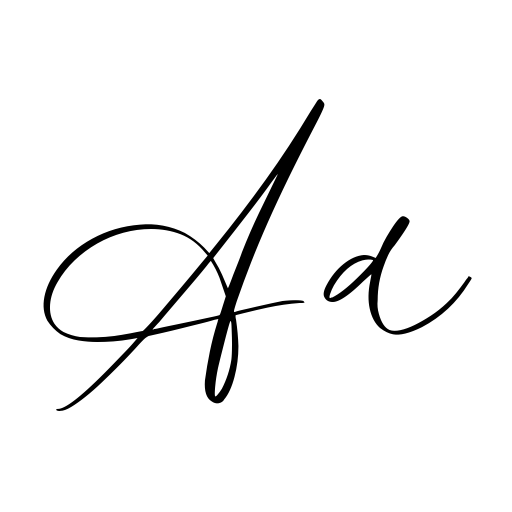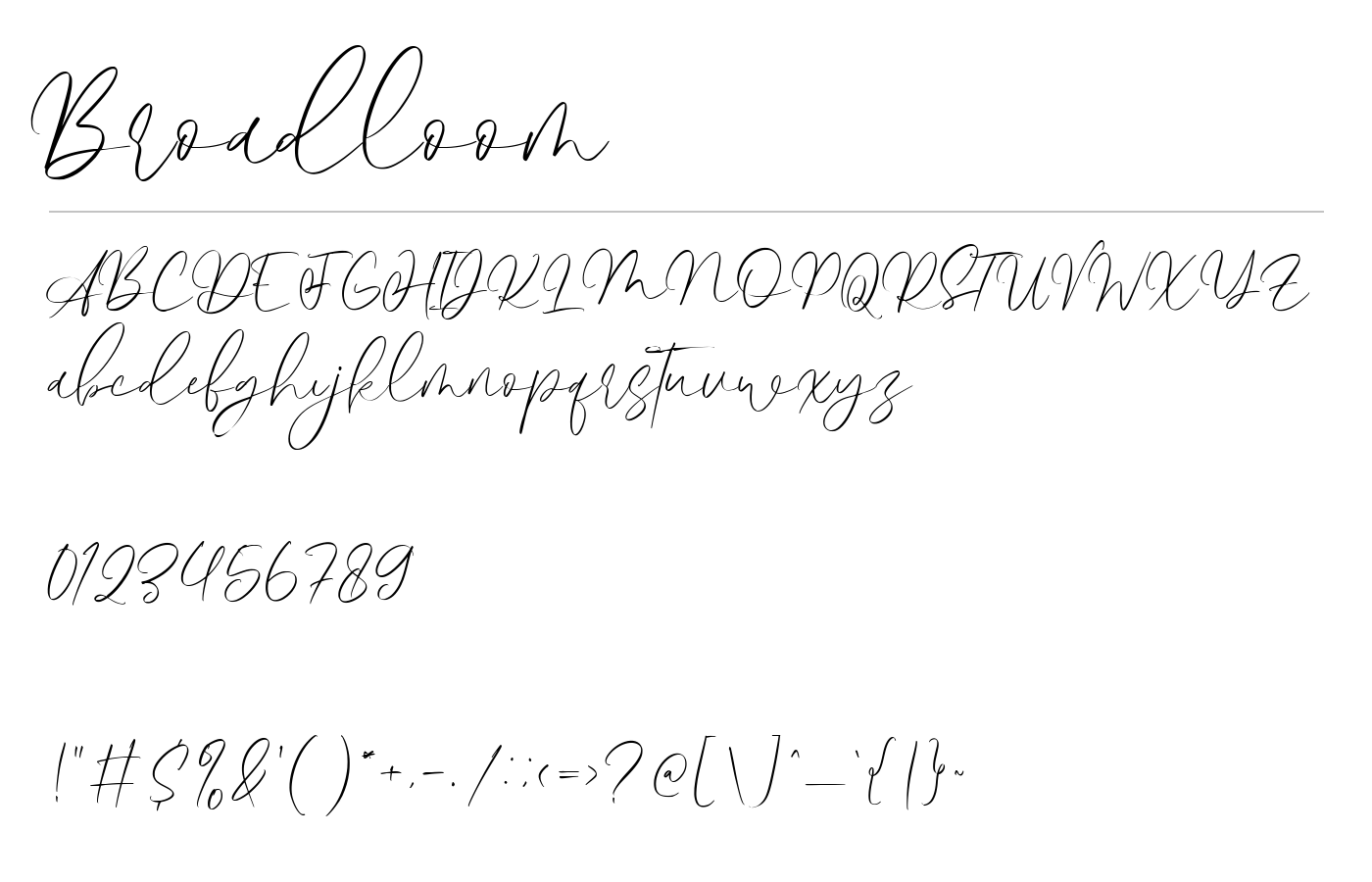
Broadloom is a delicate, handwritten script font with elegant, flowing letterforms that convey a natural and personal touch. Its thin, airy strokes and sophisticated style make it perfect for invitations, branding, and editorial designs seeking a refined yet approachable feel. This font shines in projects that benefit from a graceful, artistic look while maintaining readability.
Broadloom Font
About Broadloom Font